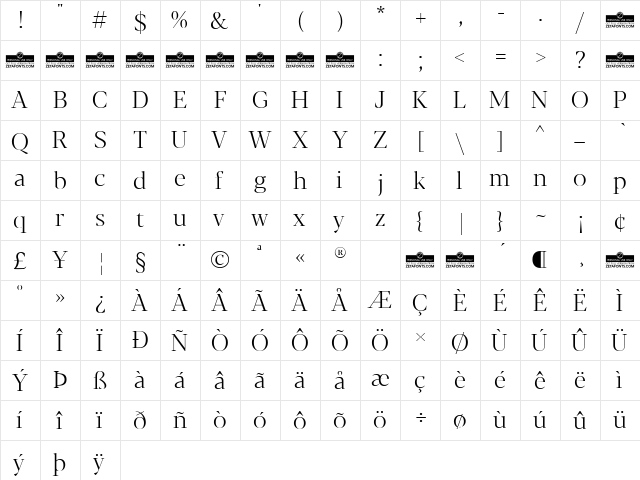
Blacker Display Light
| Foundry | Cosimo Lorenzo Pancini & Francesco Canovaro |
| Designer | Cosimo Lorenzo Pancini & Francesco Canovaro |
Design Context for Blacker Display Typeface
Blacker Display brings ornamental detail and strong personality to headlines and identities, where visual impact matters more than quiet functionality. The delicate stroke weight brings airiness and refinement to layouts.
Font Pairing: Pair with a clean neutral sans-serif for body copy to let Blacker Display's character lead without overwhelming the composition.
Pro Tip: Use Blacker Display exclusively at display sizes — it was designed to be seen, not read at length. Let a neutral companion handle body copy.